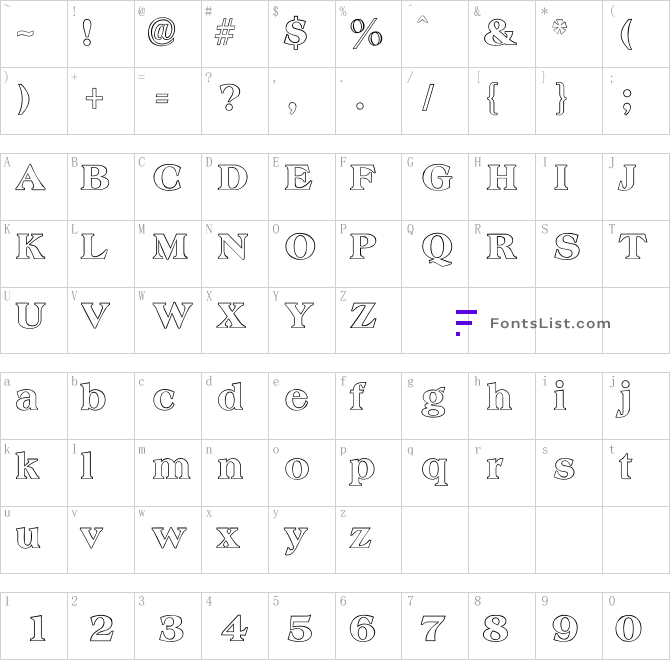
- Font Name:Amphion Outline
Amphion-Outline.ttf is a very beautiful artistic font, Amphion-Outline.ttf is widely used in the design and printing of various books and pictures,Amphion-Outline.ttf has a strong visual impact,Amphion-Outline.ttf is a commonly used font in newspapers, magazines and books, and is used in posters, e-commerce Poster design, store design, logo design, font design and other fields.Amphion-Outline.